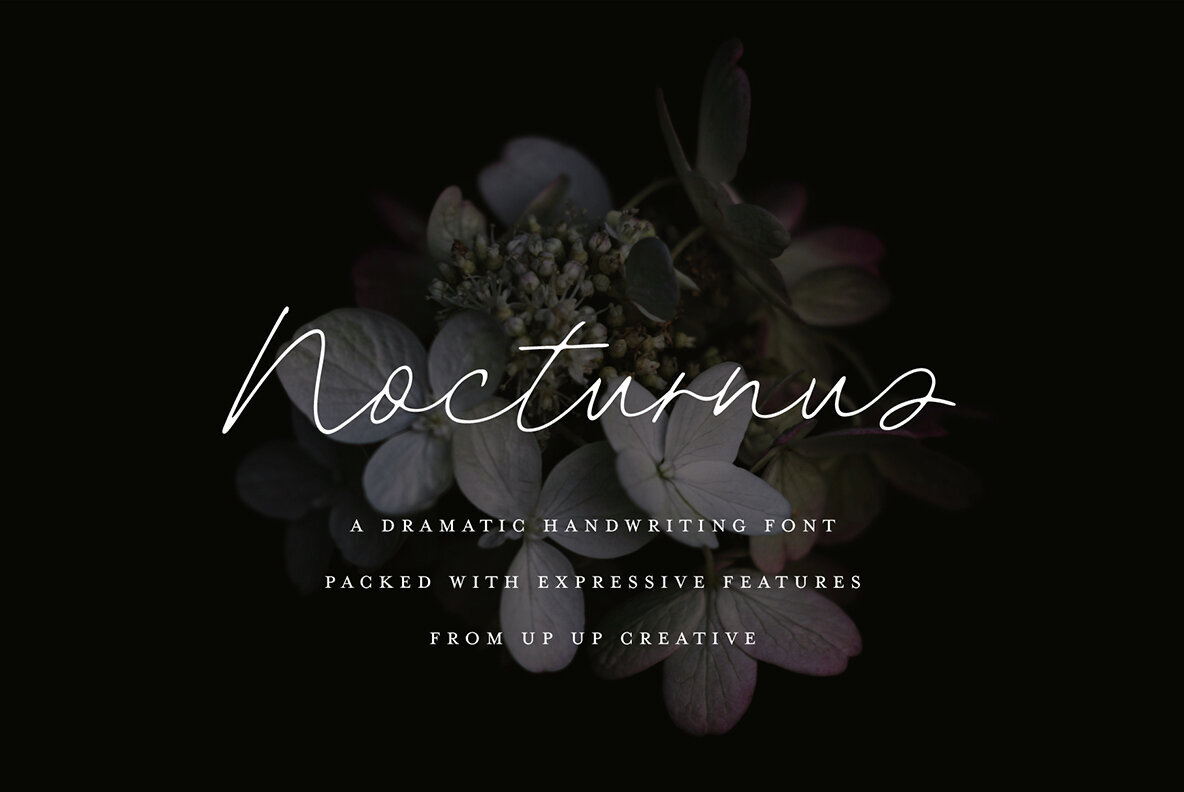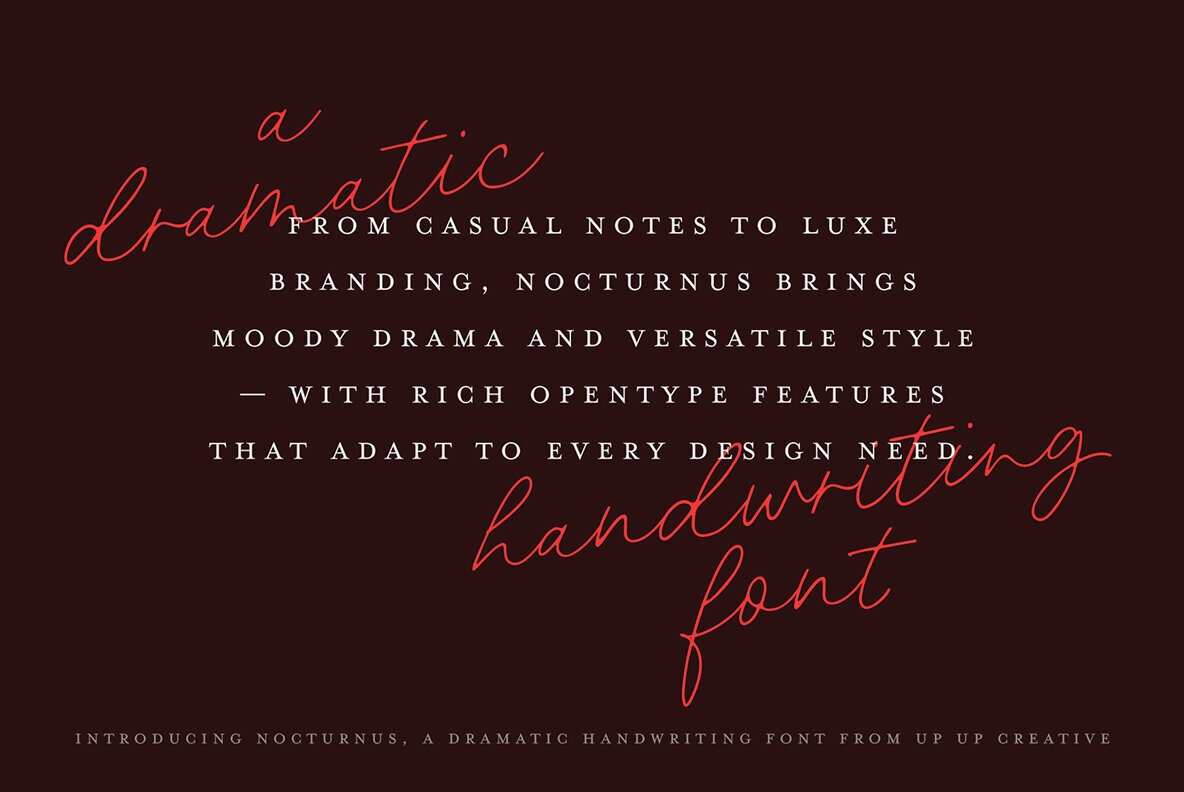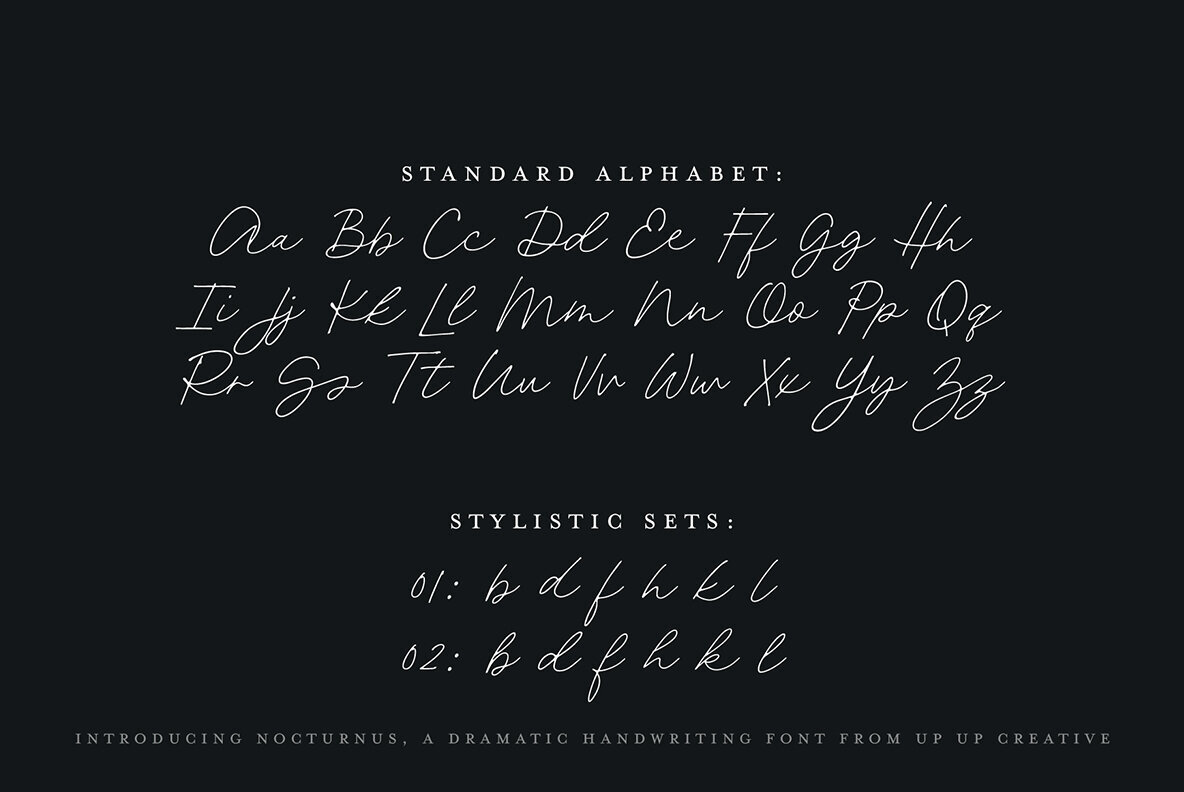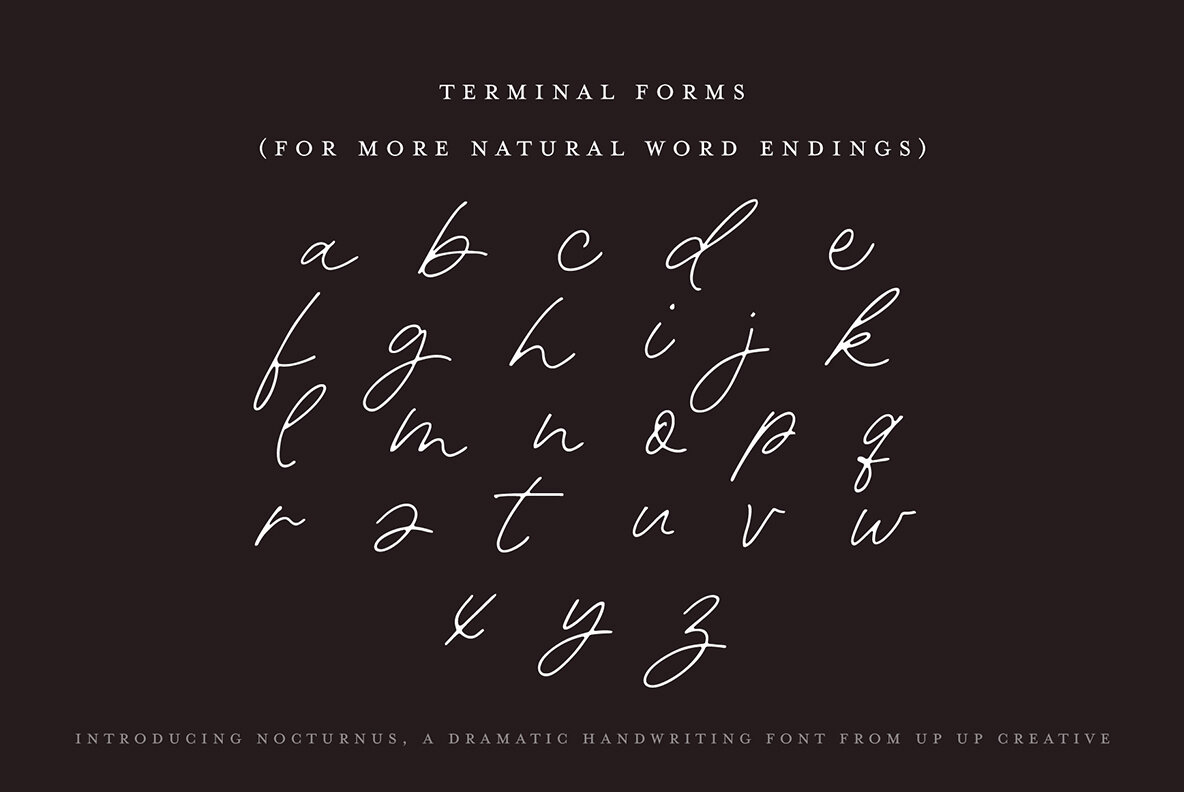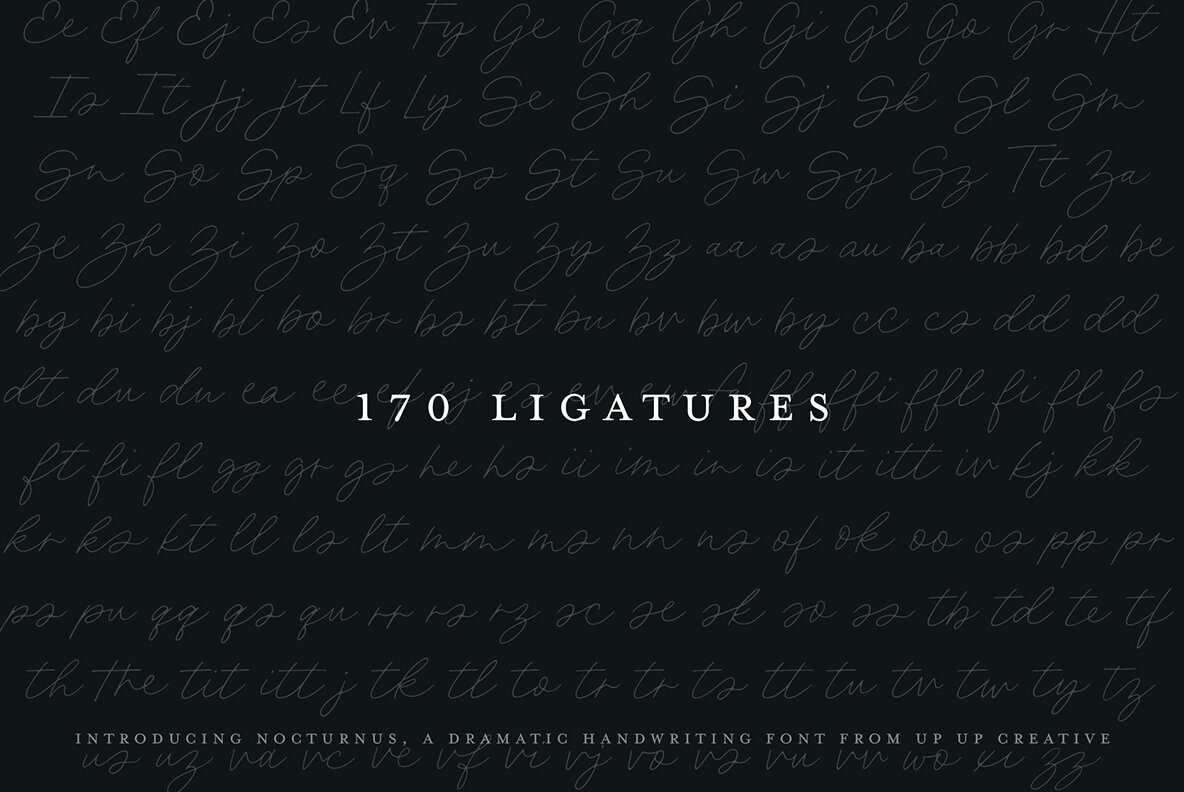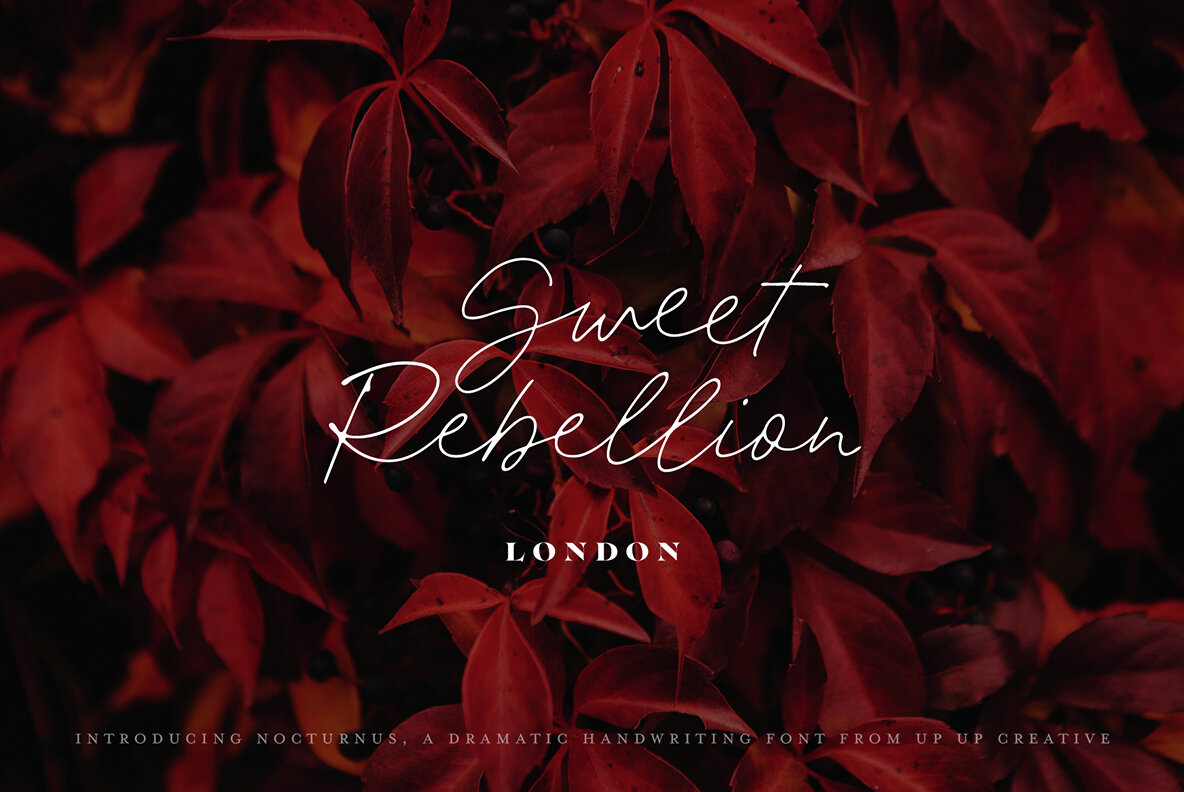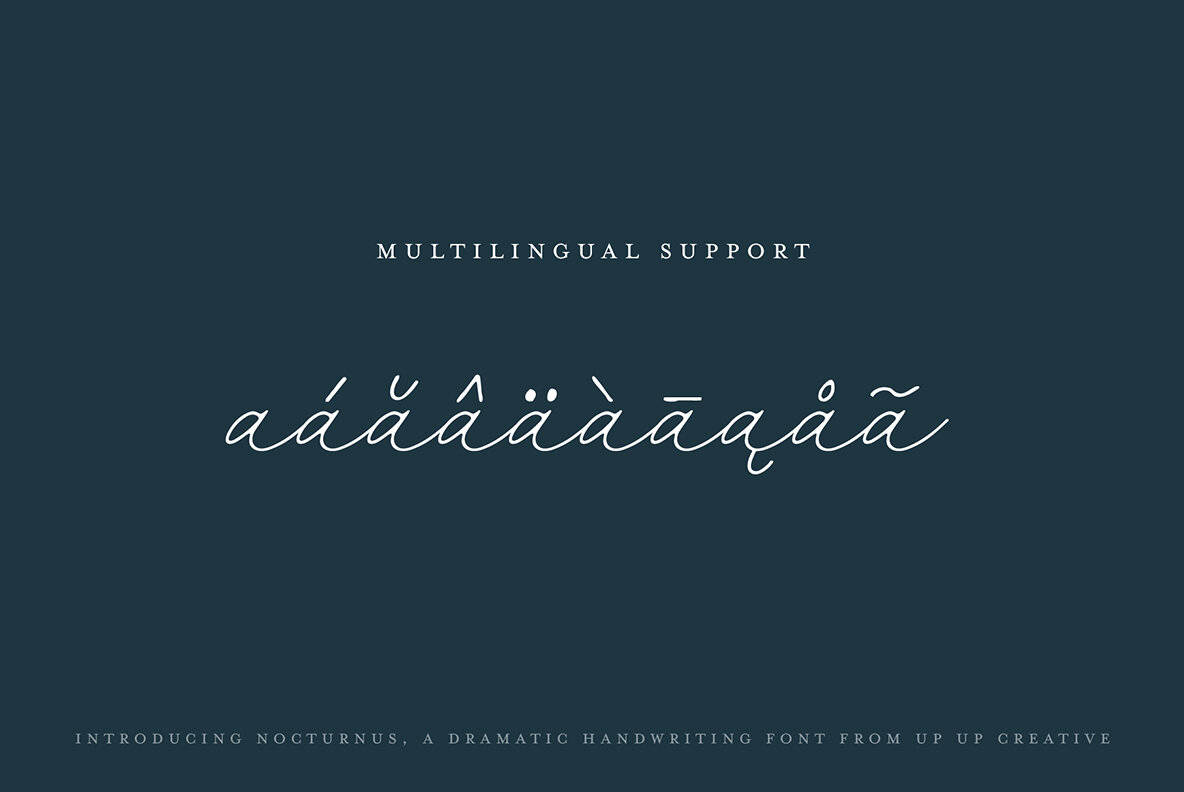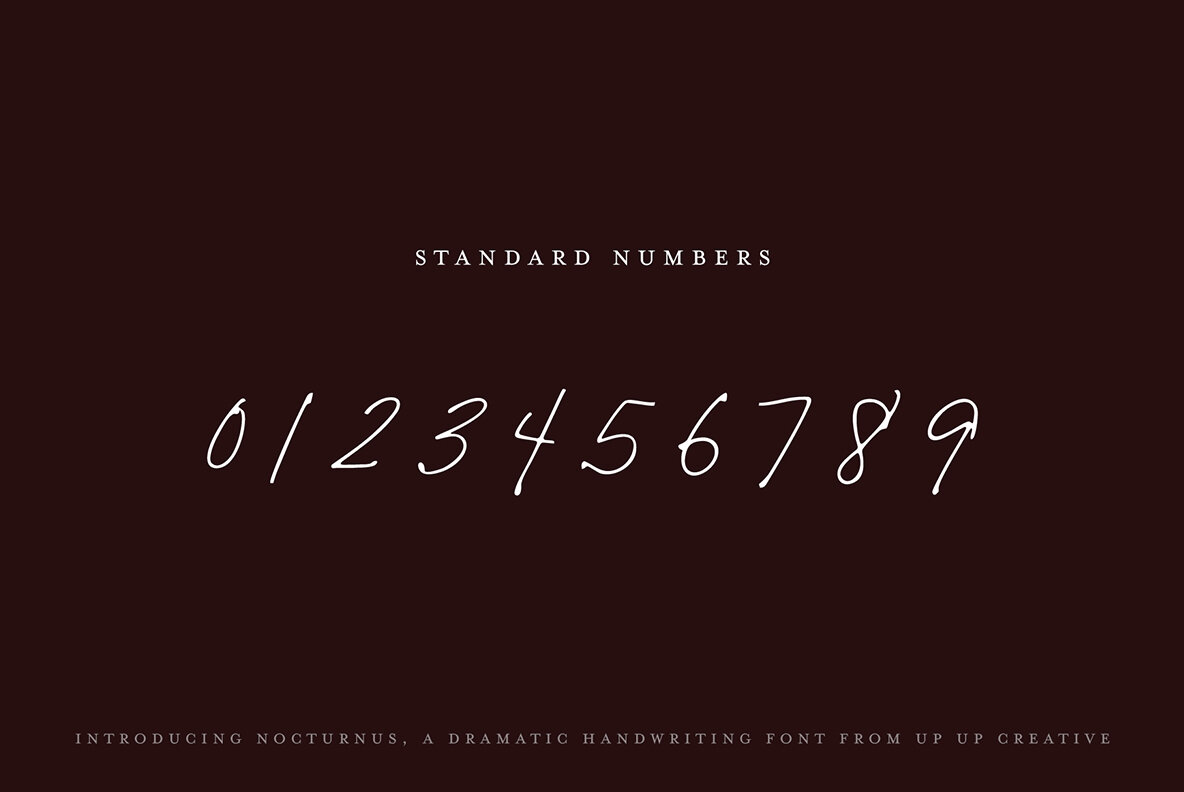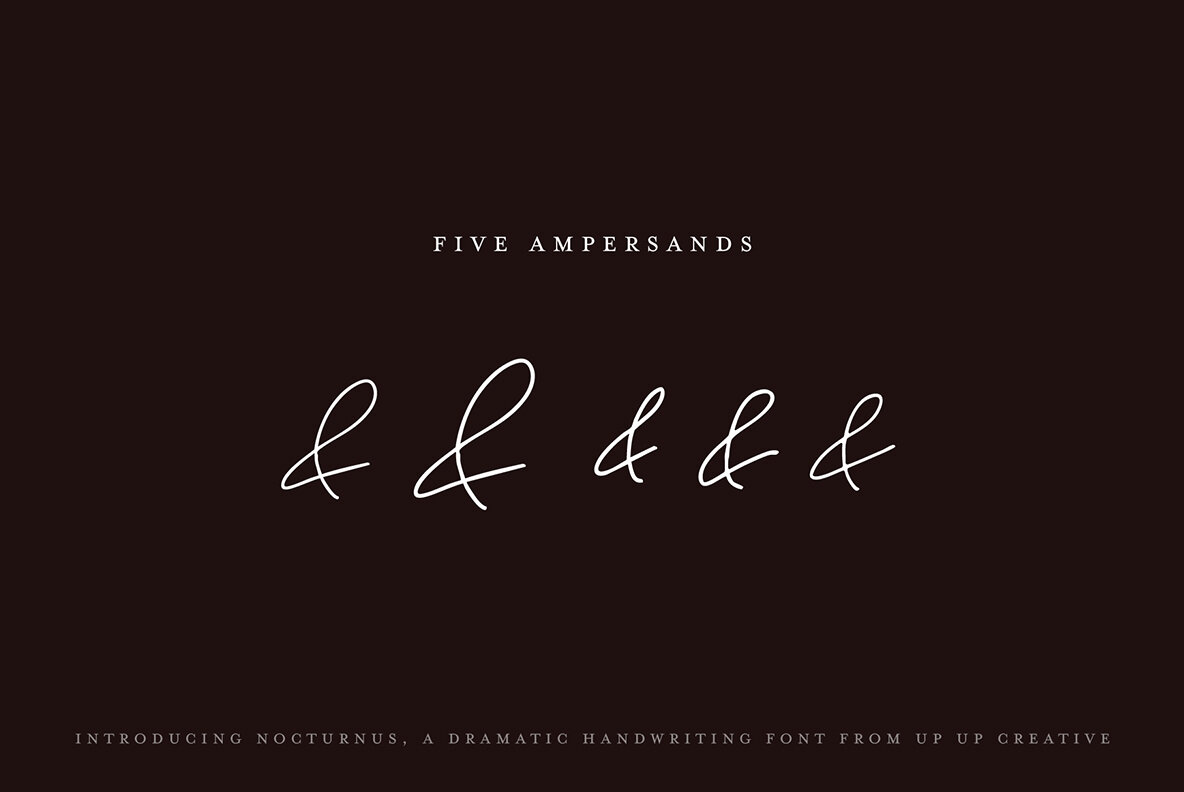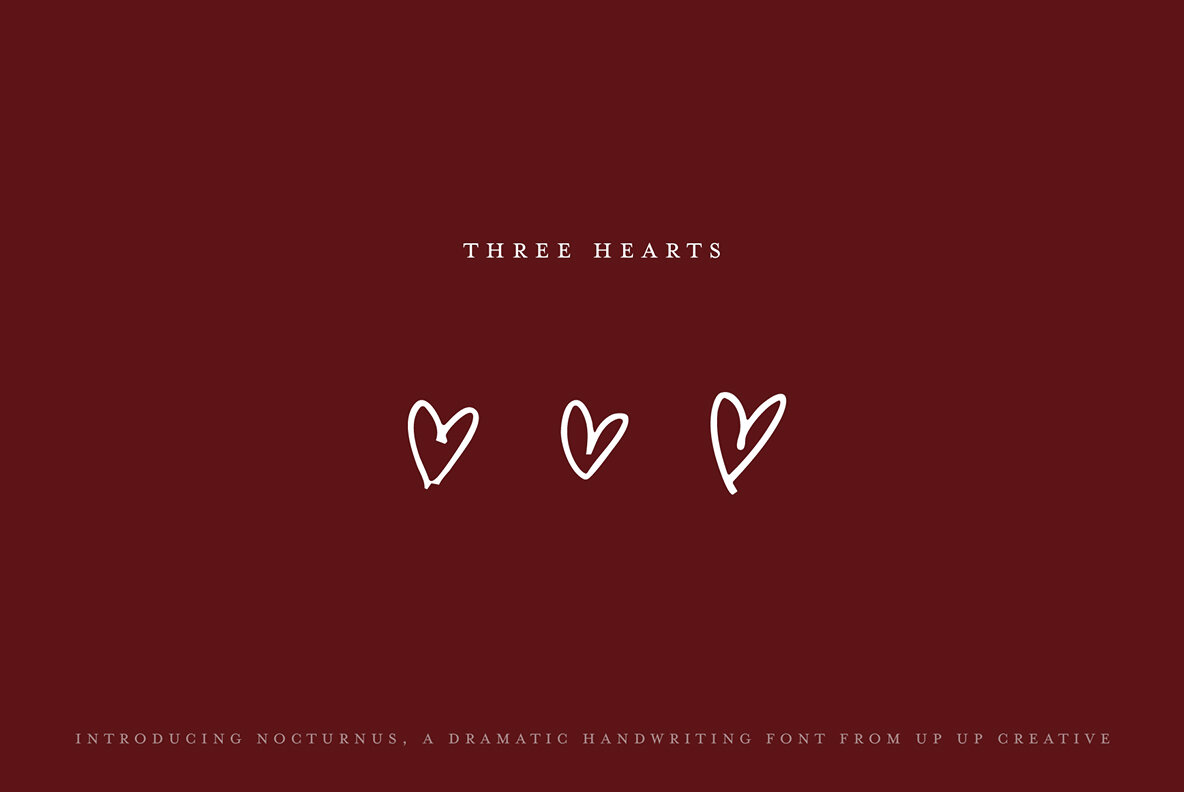
Nocturnus Font
Nocturnus Regular
Elevate your designs with Nocturnus, a striking handwriting font that exudes moody elegance and expressive energy. Ideal for high-end branding, editorial spreads, wedding invitations, or dynamic social media graphics, Nocturnus adapts effortlessly to your creative needs. Its unique combination of edgy imperfection and refined detail suits both luxury projects and casual settings, ensuring your message always stands out. With an impressive 802 glyphs, Nocturnus supports 200 languages and offers over 170 thoughtfully designed ligatures. Each keystroke brings fluid authenticity, featuring terminal forms, contextual alternates, and two stylistic sets. These elements provide the flexibility you need to create text that is both natural and vibrant, making Nocturnus a versatile choice for any project.Nocturnus: The Dramatic Handwriting Font
Key Features of Nocturnus: